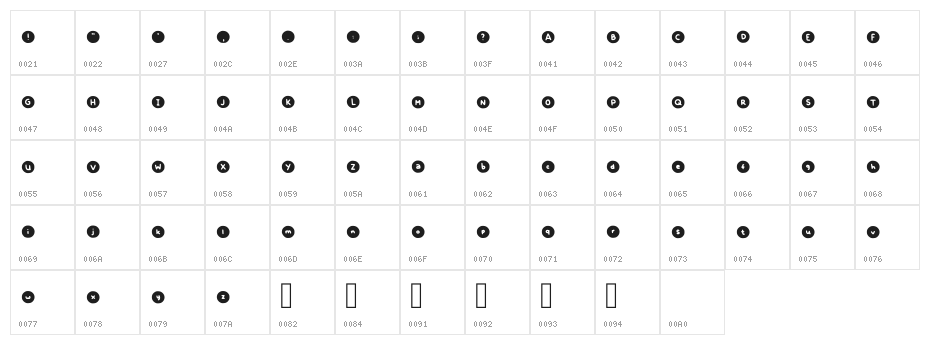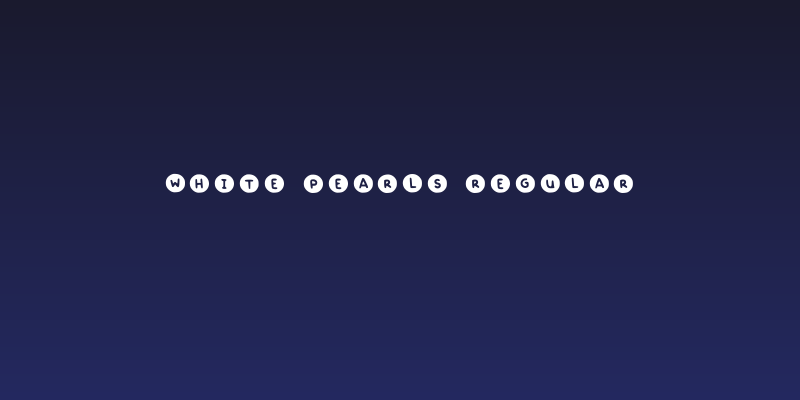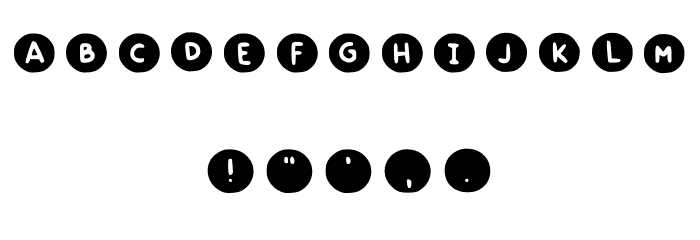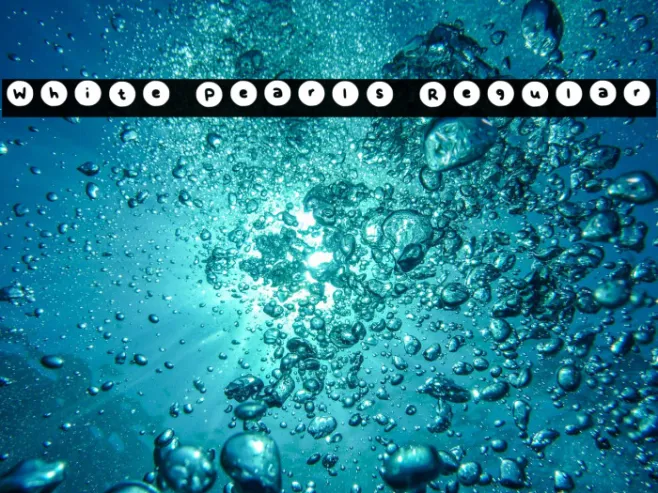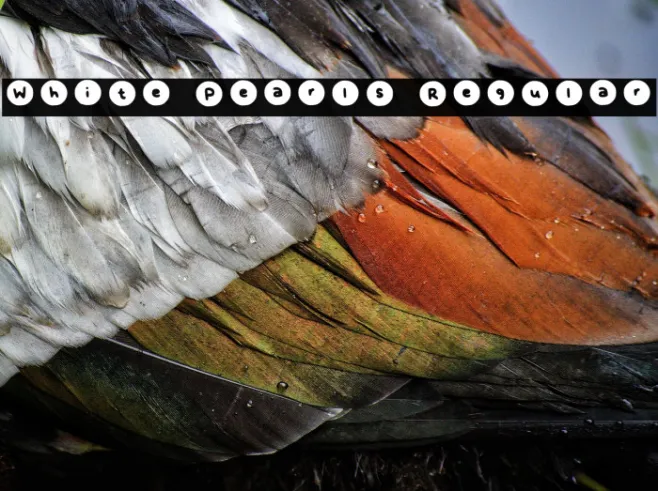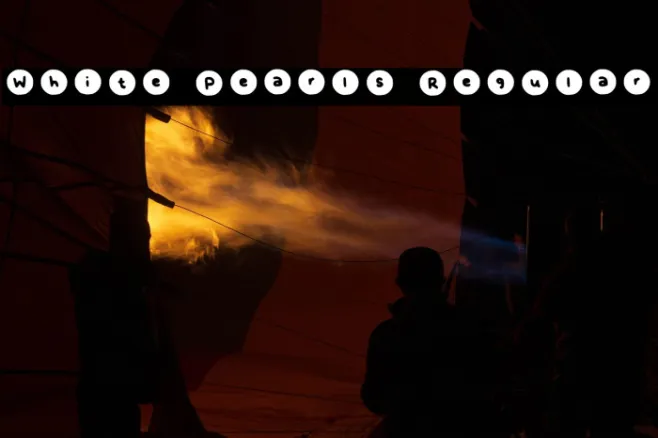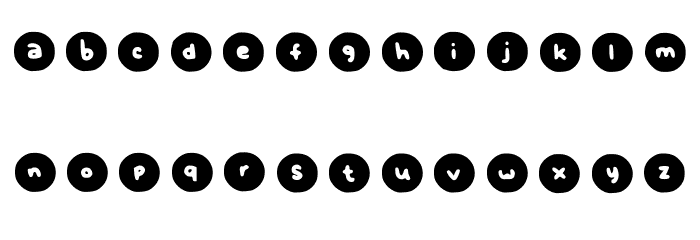
White Pearls Regular Font
White Pearls Regular Description
This playful and decorative font features bold, rounded letters enclosed within circular shapes, creating a unique and eye-catching appearance. The characters are evenly spaced within their circular boundaries, giving a consistent and cohesive look. The font's style is reminiscent of playful, childlike designs, making it suitable for creative and informal applications. The uppercase and lowercase letters maintain a uniform size within the circles, ensuring readability while adding a whimsical touch. The font includes basic punctuation, enhancing its versatility for various design projects.
| Use Case | Headlines, Logos, Creative Designs |
| Proposed Projects | Ideal for children's books, playful branding, party invitations, and creative posters. |